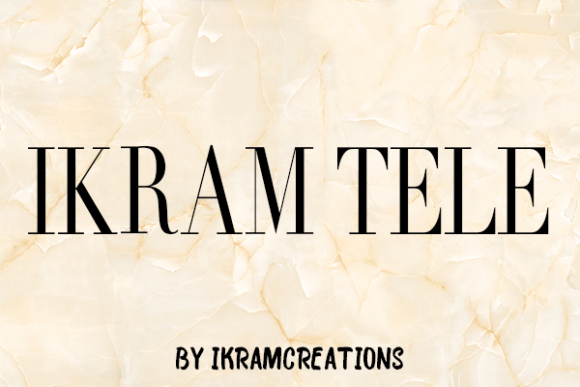
Introduction to Ikram Tele Font
Ikram Tele is the best choice for creating eye-catching logos, branding, and quotes.
Every letter has a unique and beautiful touch, which will make your design come alive .